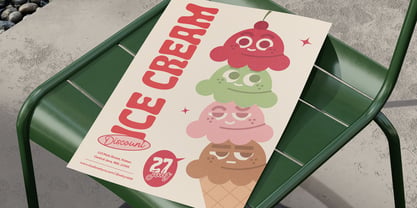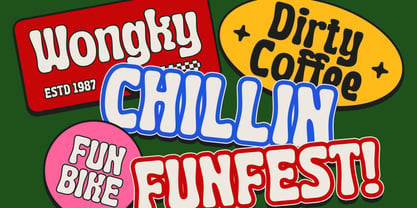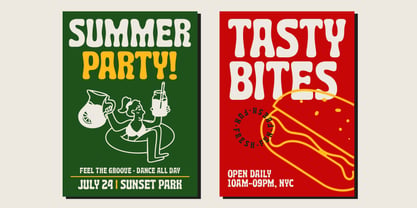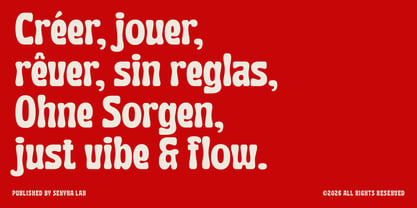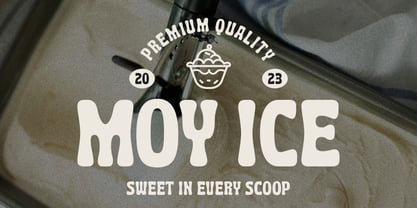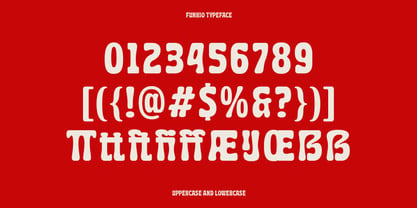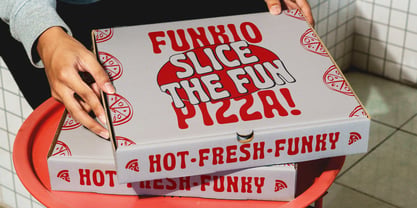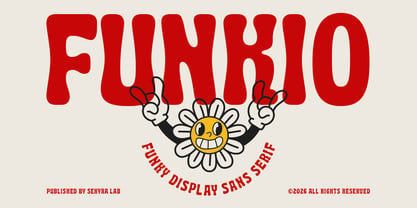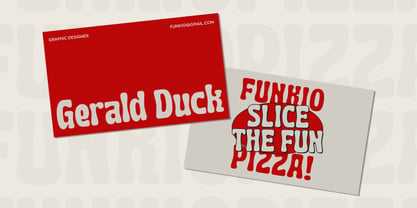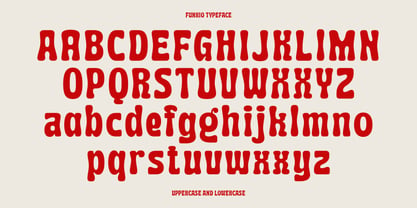
Funkio
The Funkio Font Family was designed by Hanif Al Irsyad and published by Sekyra Lab. Funkio contains 1 styles. More about this family
Funkio is a bold and playful display sans serif font designed to infuse fun, energy, and personality into your designs. Featuring chunky shapes, soft curves, and a retro-inspired style, Funkio is ideal for projects that require a strong and cheerful visual impact. This typeface excels in applications such as posters, packaging, branding, children's designs, food visuals, and any project that demands a funky and expressive vibe. Its unique letterforms make every word feel lively, friendly, and full of character. Funkio includes complete uppercase and lowercase characters, numbers, punctuation, and multilingual support, ensuring versatility for a wide array of creative endeavors.